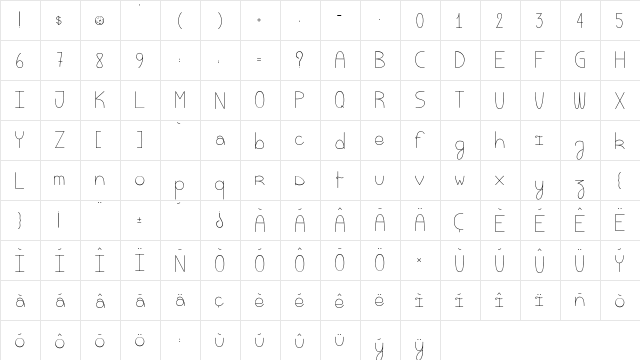
Eat My Cookie Regular
| Foundry | dcoxy Medina Gregory |
| Designer | dcoxy Medina Gregory |
Design Context for Eat My Cookie Typeface
Eat My Cookie offers clean, dependable letterforms without strong stylistic allegiance, making it a practical choice for designers who need flexibility.